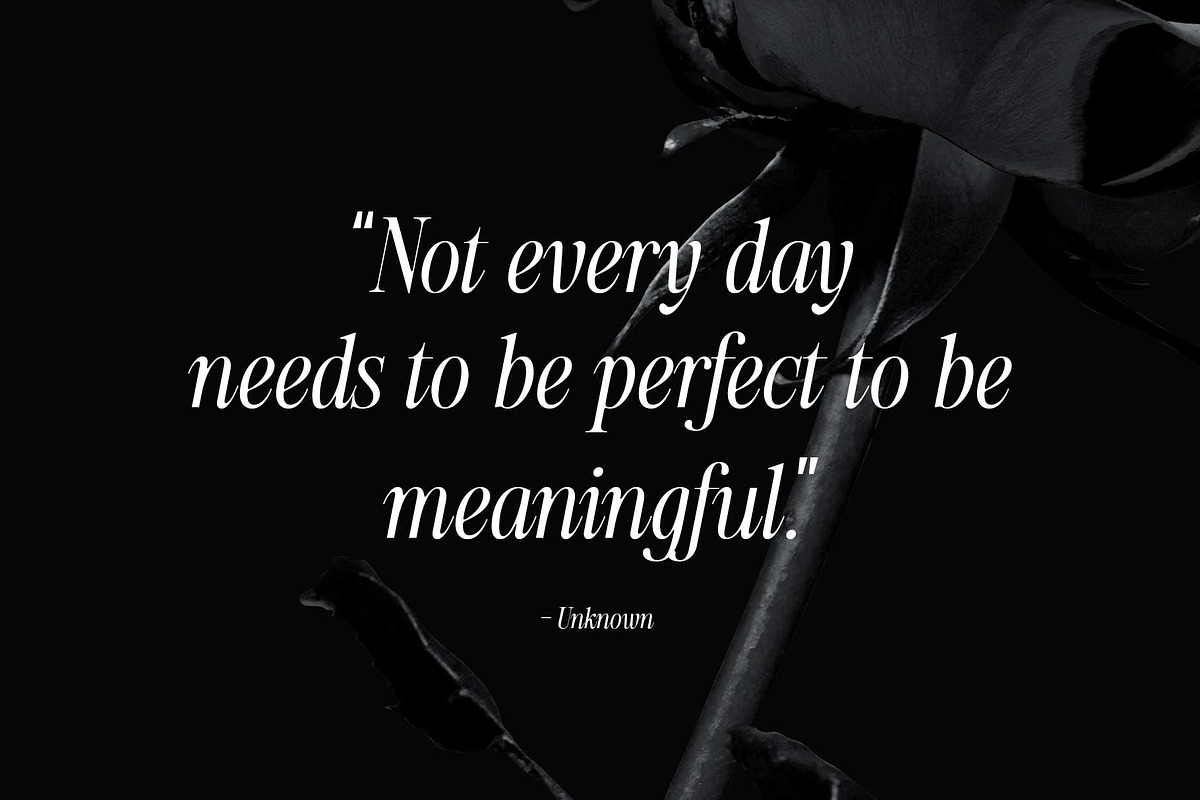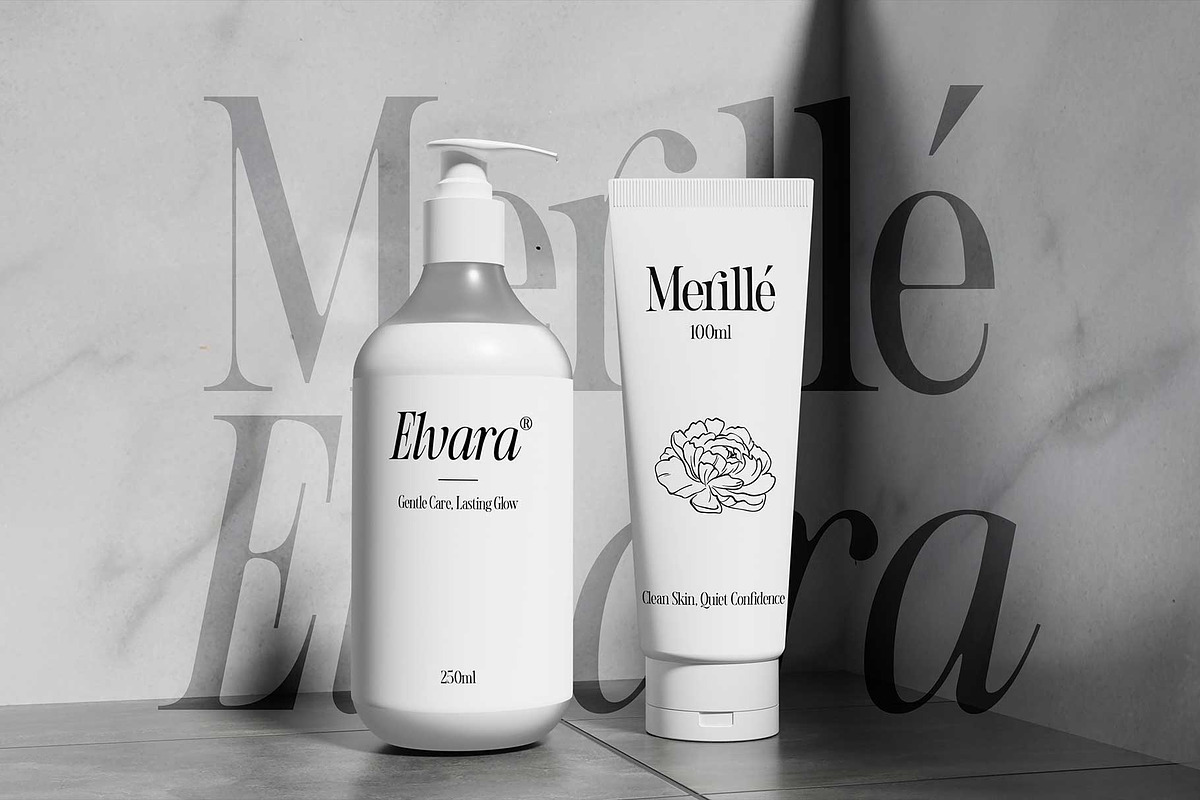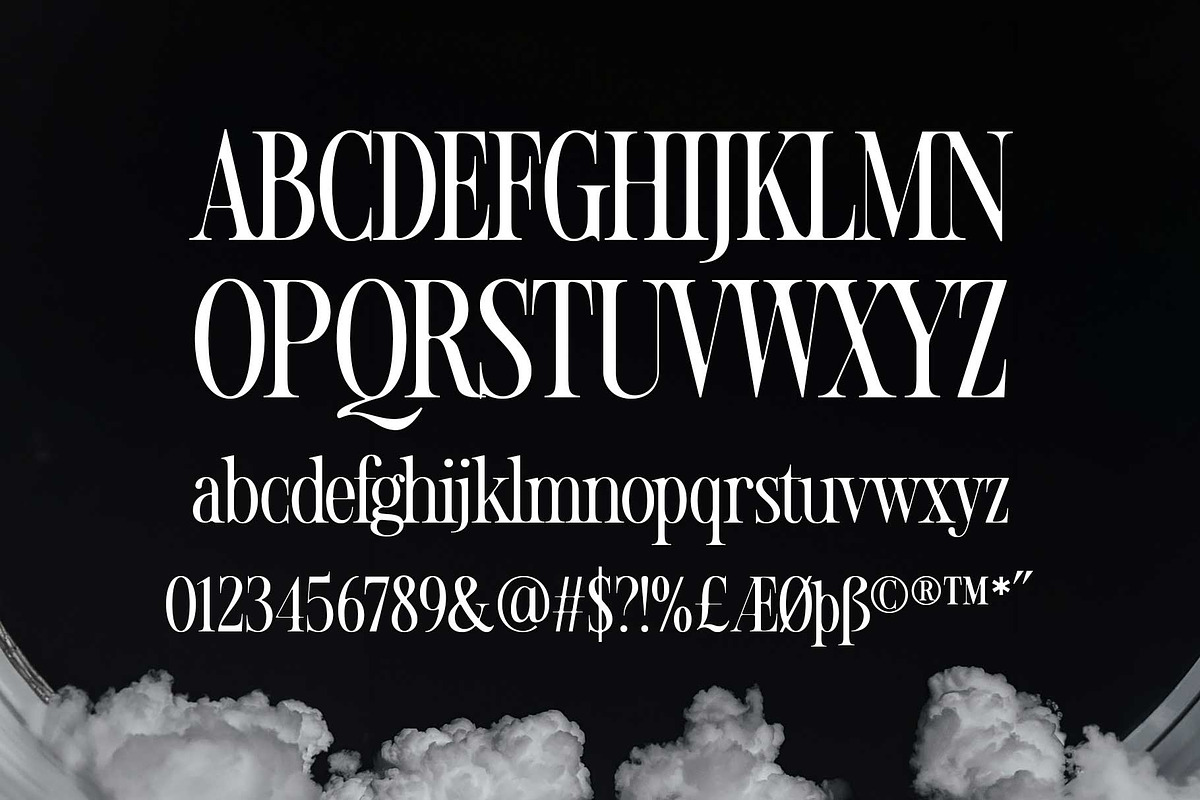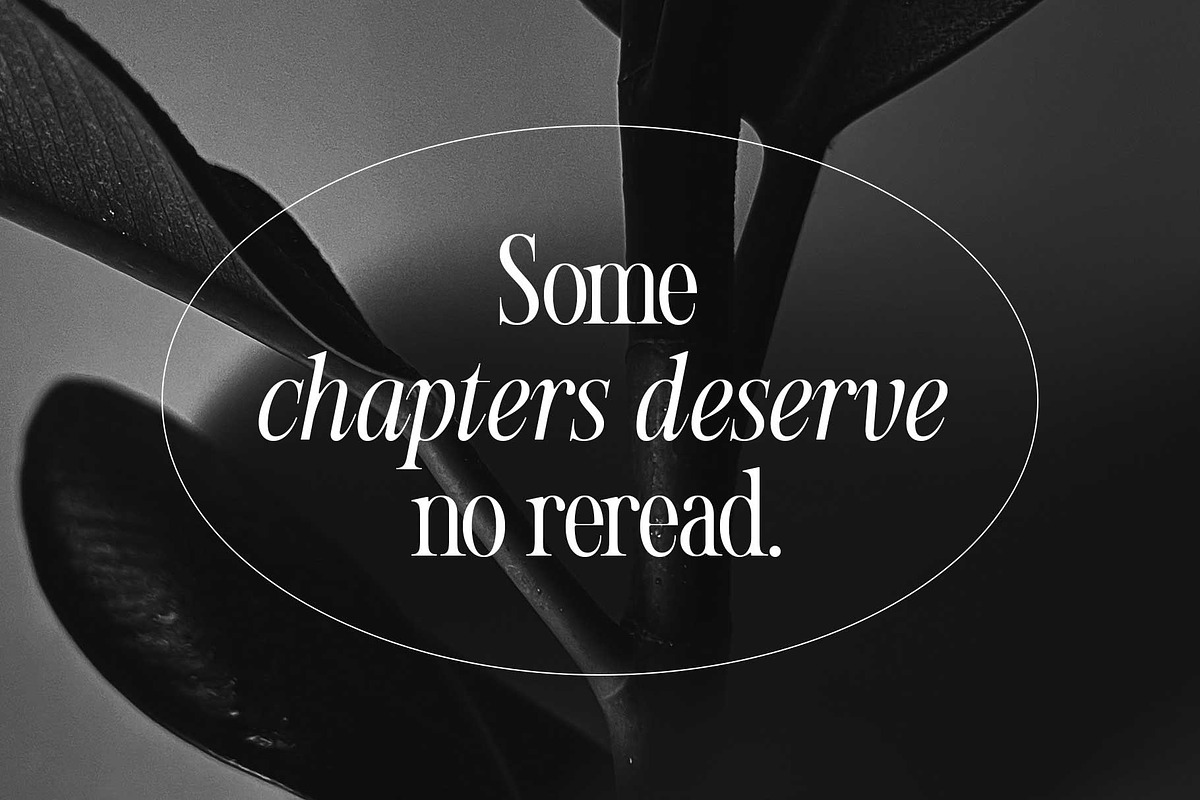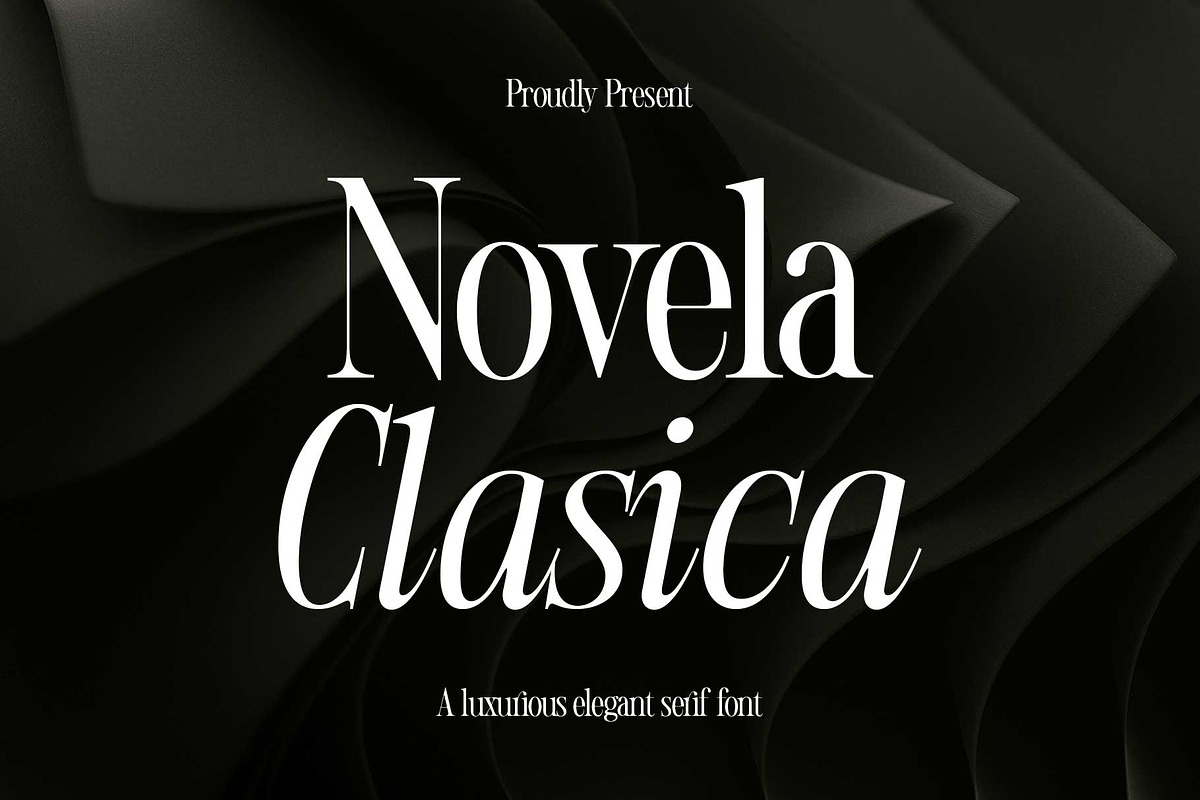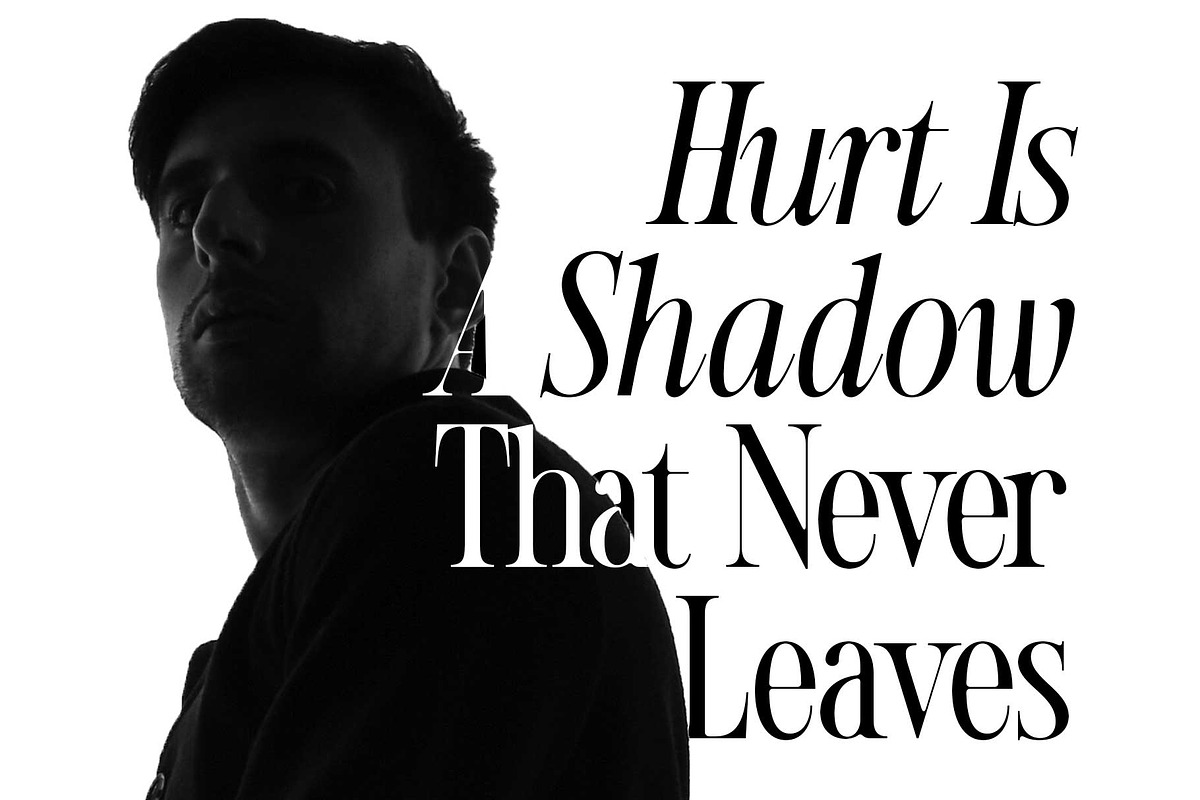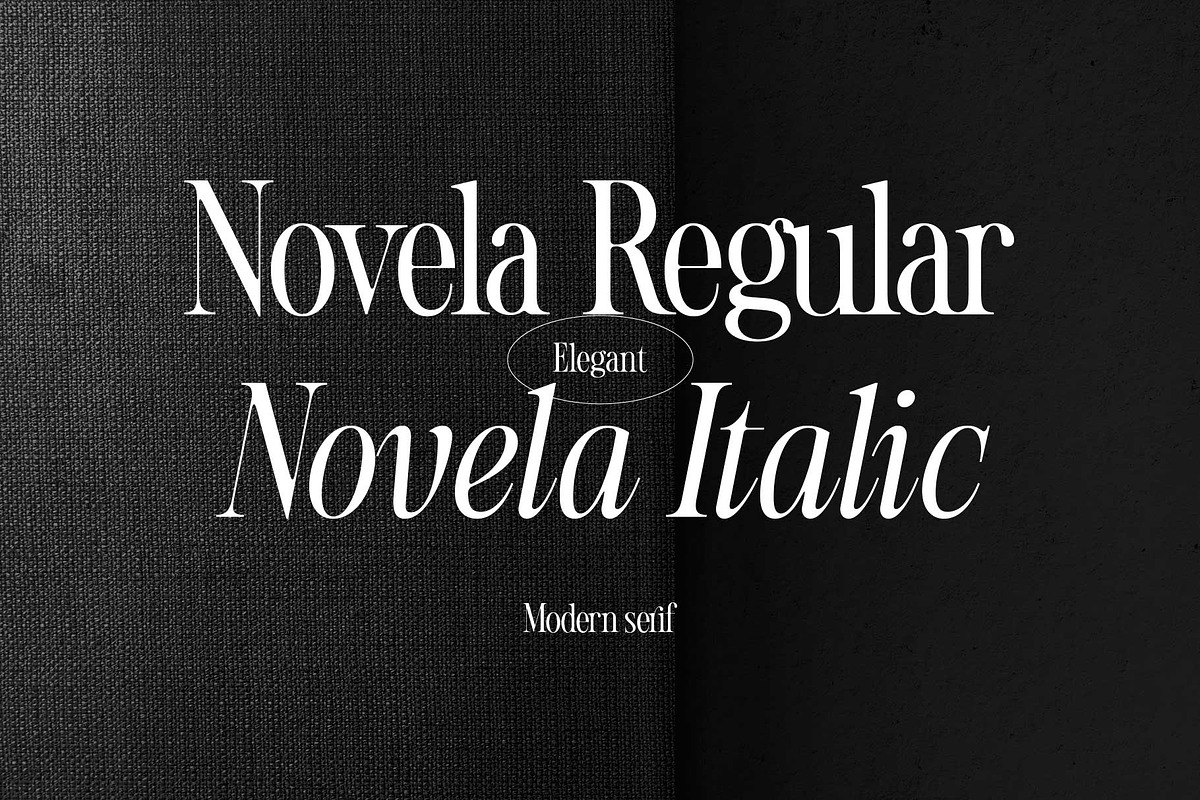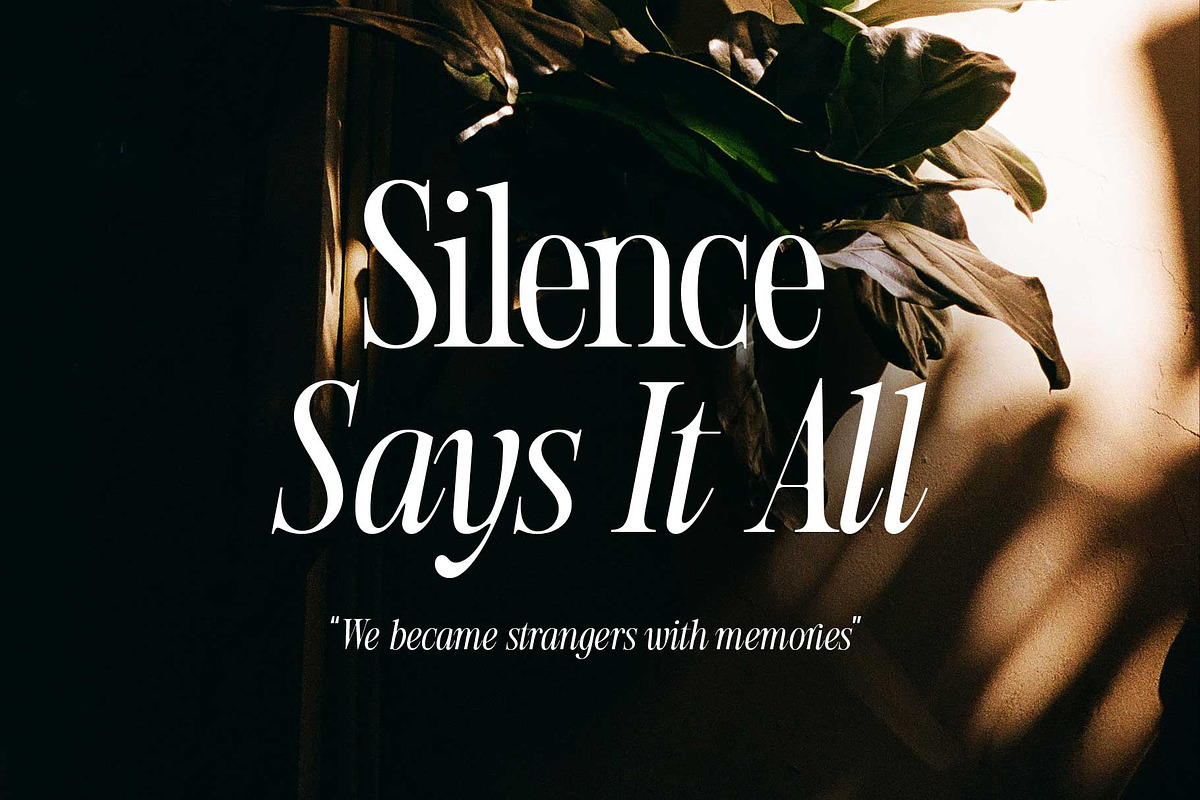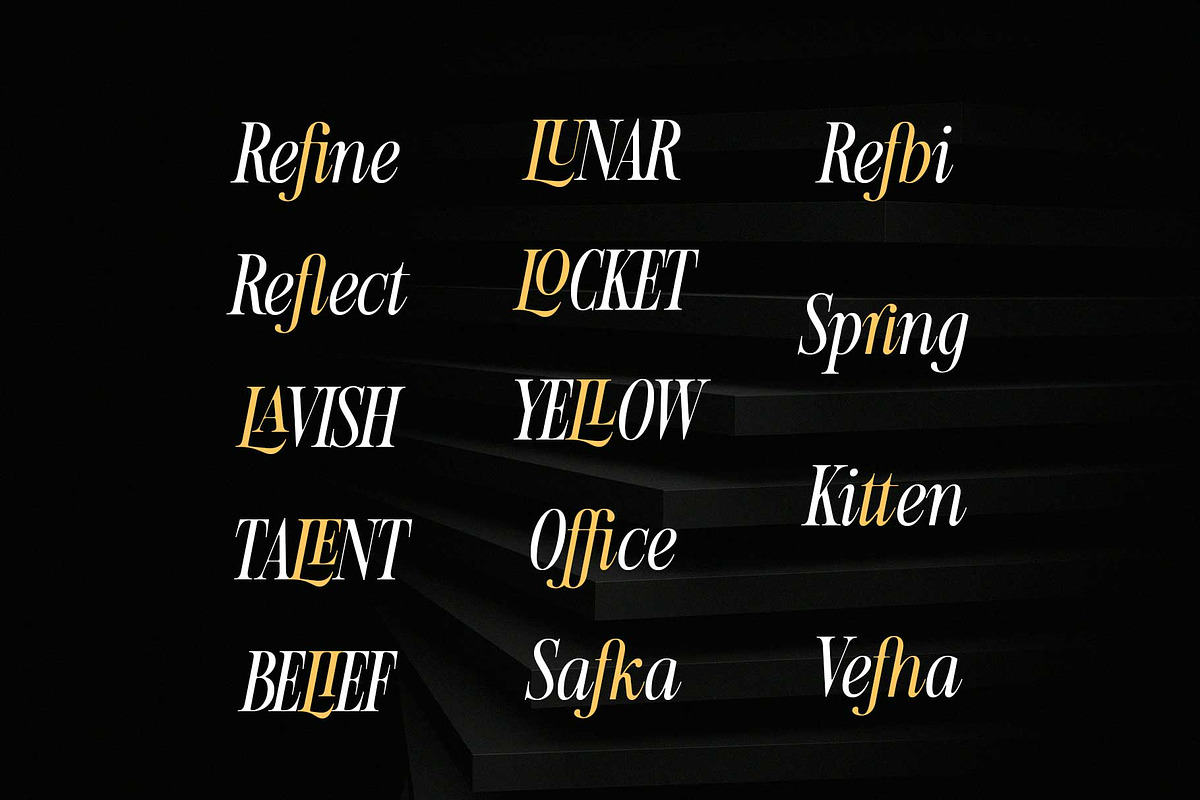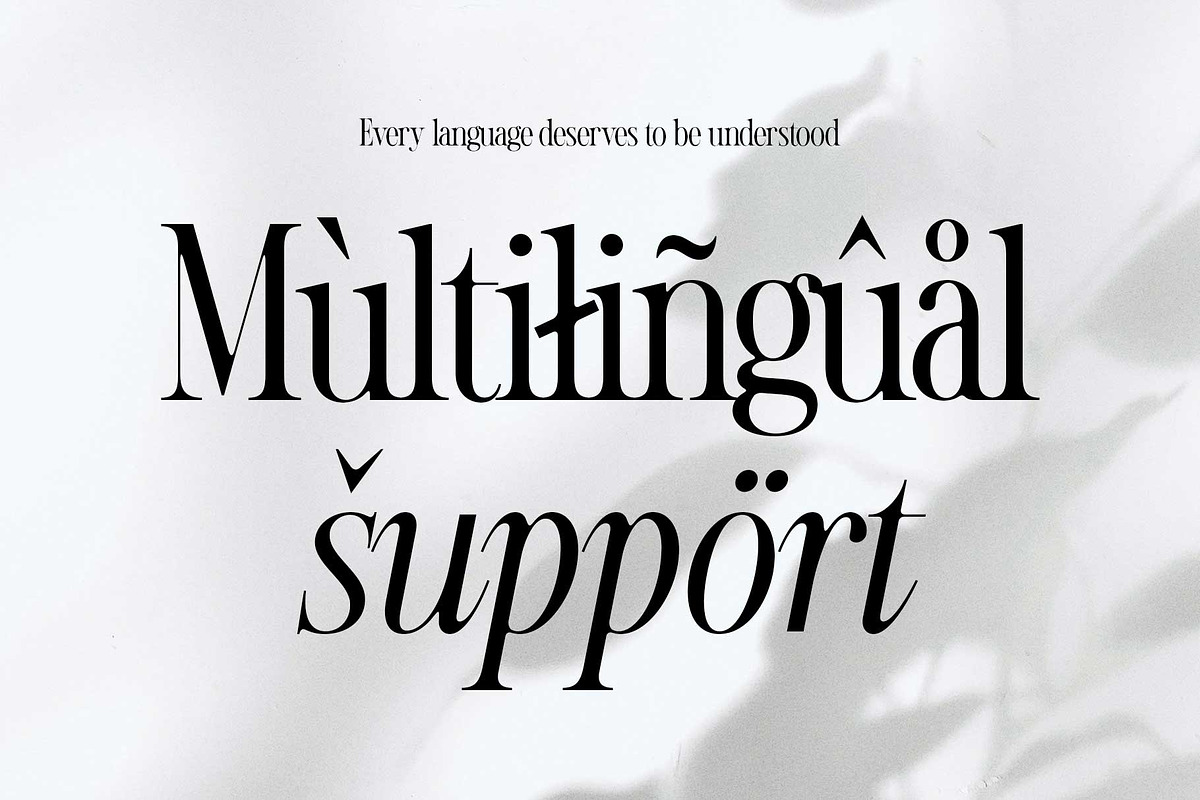
Novela Clasica - Modern Serif
Introducing Novela Clasica, a refined serif typeface that blends timeless elegance with a subtle modern touch. Inspired by classic editorial typography, it delivers a sophisticated look—perfect for logos, branding, and premium design projects.
Comes in Regular and Italic styles, carefully crafted to complement each other. The italic version adds a graceful, expressive contrast while maintaining excellent readability and balance across various design needs.
Designed with versatility in mind, Novela Clasica works beautifully for branding, packaging, editorial layouts, and more. It also includes a set of ligatures allowing you to create distinctive, polished, and visually refined typography with ease.